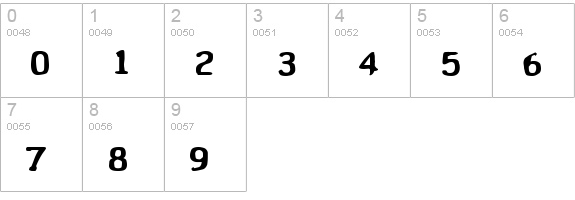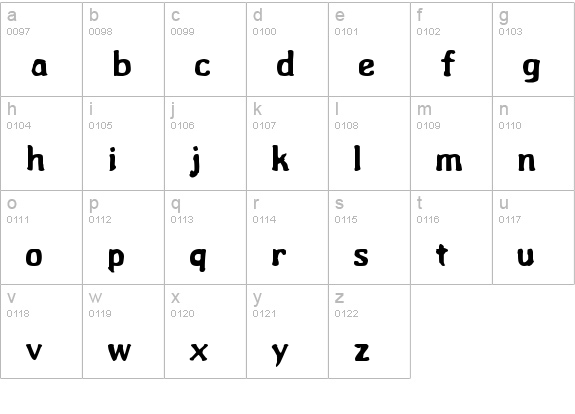
Wibble Font Details
Introducing Wibble font, a captivating and versatile typeface that effortlessly combines modernity with a touch of whimsy. This delightful font is perfect for adding a playful yet polished aesthetic to any creative project. With its unique and eye-catching letterforms, Wibble font is sure to grab attention and leave a lasting impression. But what makes Wibble font truly special is that it is not only visually striking, but also completely free to use! Yes, you read that right - this incredible font is freely available to download at FontsMarket.com. Whether you're a professional graphic designer or simply a typography enthusiast, Wibble font offers you the opportunity to elevate your designs without breaking the bank. With its extensive character set, Wibble font provides endless possibilities for customization and experimentation. From bold headlines to elegant body text, this font effortlessly adapts to a variety of design needs. Its unique blend of curves and angles creates a harmonious balance, ensuring legibility while still adding a touch of personality. Wibble font is more than just a typeface; it's a tool that empowers you to bring your creative vision to life. Whether you're working on a branding project, a magazine layout, a website design, or any other creative endeavor, Wibble font is the perfect companion. Its versatility and charm are bound to inspire you and captivate your audience. So why wait? Unlock the potential of your designs with Wibble font - the stylish, playful, and free typeface that is just a click away. Download it now at FontsMarket.com and let your creativity soar.